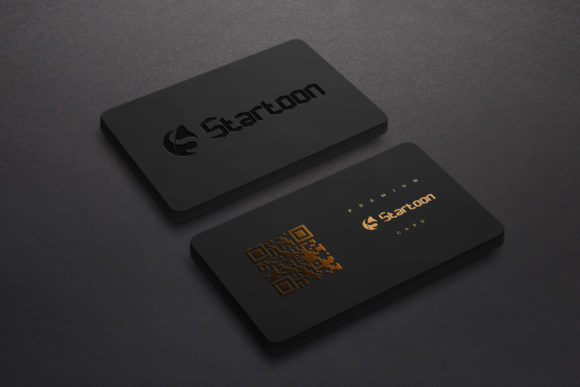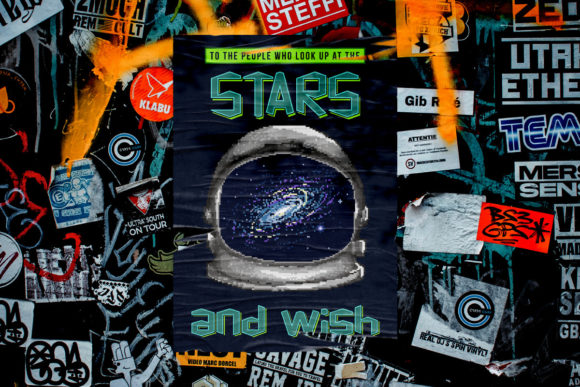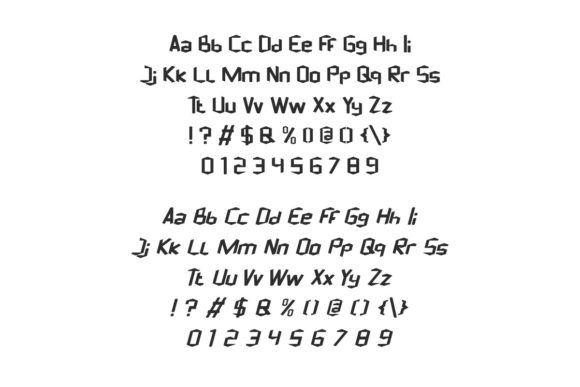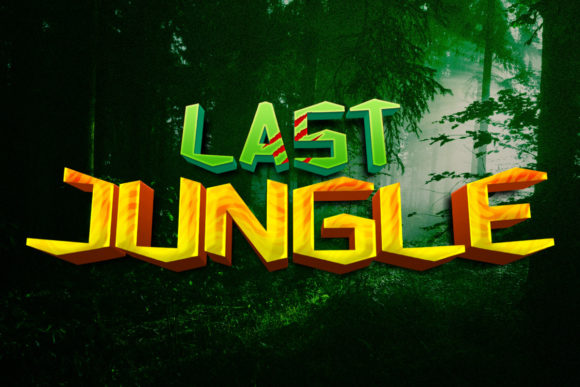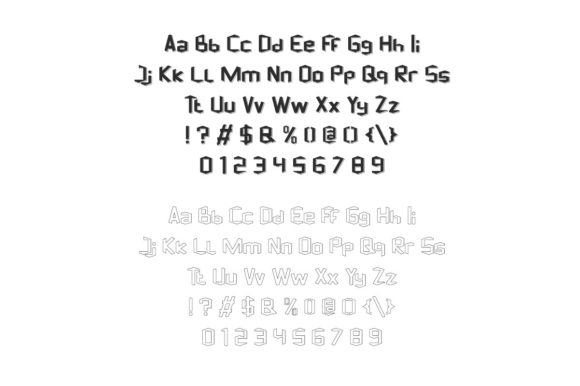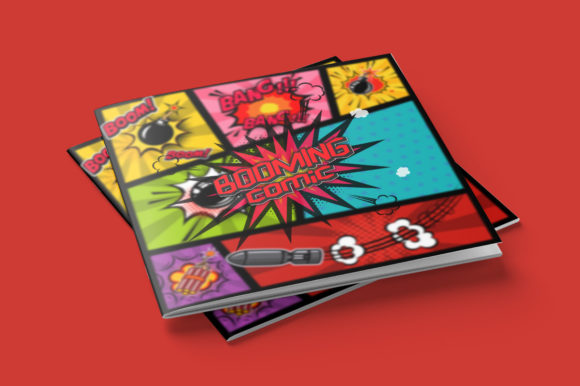
Cubical Font: Elevate Your Designs with a Futuristic and Modern Display Font
In the realm of typography, fonts play a crucial role in conveying the tone and aesthetic of a design. For designers and crafters seeking a unique and modern display font, Cubical Font is an exceptional choice. This futuristic font boasts special shapes that instantly add a techno vibe to any project, making it perfect for a wide range of applications.
What is Cubical Font?
Cubical Font is a distinctive and contemporary display font designed to make a statement. Its futuristic and techno style is reminiscent of game titles and spaceship news, evoking a sense of innovation and cutting-edge technology. The font’s unique shapes and sleek lines create a visually stunning effect that can elevate any design, from logos and print materials to headlines and body text.
Key Features of Cubical Font
- Unique and Modern Design: Cubical Font features a one-of-a-kind design that sets it apart from other fonts. Its special shapes and futuristic style make it perfect for designers looking to add a touch of innovation to their work.
- Versatile: This font is incredibly versatile and can be used in various contexts, including logos, print materials, headlines, body text, and more.
- Futuristic and Techno Style: Cubical Font’s futuristic and techno style is ideal for projects that require a modern and cutting-edge aesthetic.
- Inspired by Game Titles and Spaceship News: The font’s design is inspired by game titles and spaceship news, giving it a unique and exciting feel.
Use Cases for Cubical Font
Cubical Font is perfect for a wide range of design projects, including:
- Headings and Logos: The font’s bold and futuristic style makes it ideal for headings and logos that require a strong and attention-grabbing presence.
- Branding Design: Cubical Font can be used to create a unique and memorable brand identity that sets your business apart from the competition.
- Quotes and Products: The font’s sleek and modern design makes it perfect for showcasing quotes and products in a stylish and eye-catching way.
- Cards and Stationery: Cubical Font can be used to create stunning cards and stationery that make a lasting impression.
- Invitations and More: The font’s versatility makes it suitable for a wide range of design projects, including invitations, posters, and more.
Benefits of Using Cubical Font
By incorporating Cubical Font into your design projects, you can:
- Elevate Your Designs: The font’s futuristic and modern style can instantly elevate your designs and give them a professional edge.
- Stand Out from the Competition: The font’s unique and distinctive style can help your designs stand out from the competition and leave a lasting impression.
- Create Stunning Logos and Headings: Use the font to create bold and attention-grabbing logos and headings that make a lasting impression.
- Design Professional-Looking Materials: Cubical Font can be used to create a wide range of design materials, including brochures, flyers, and more.
- Take Your Designs to the Next Level: With Cubical Font, you can take your designs to the next level and create stunning projects that showcase your creativity and skill.
In conclusion, Cubical Font is an exceptional choice for designers and crafters seeking a unique and modern display font. Its futuristic and techno style, versatility, and ease of use make it perfect for a wide range of design projects. By incorporating Cubical Font into your design workflow, you can elevate your designs, save time, and stand out from the competition.